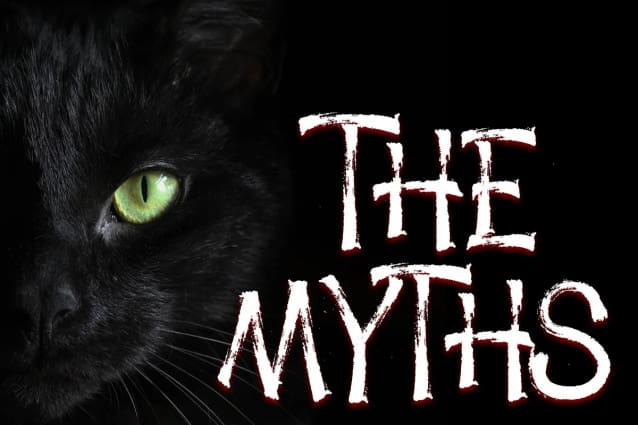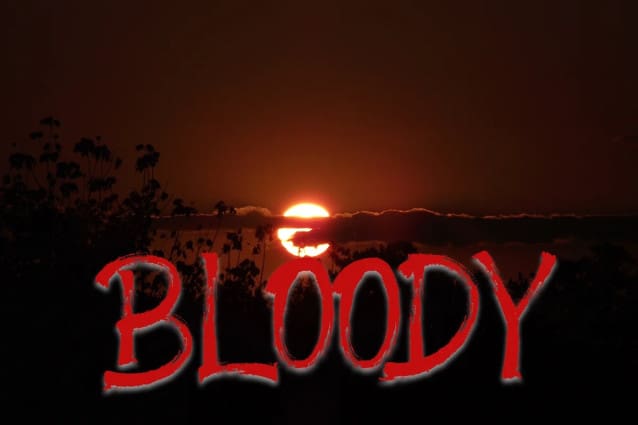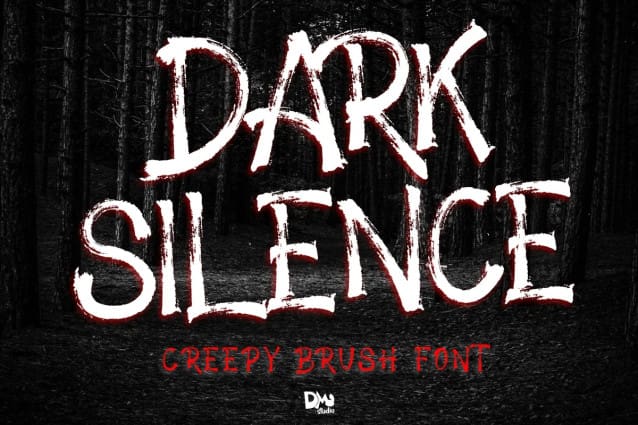
Dark Silence Font
Dark Silence Font is a creepy brush font with rough texture. Make your design more frightening! This font will look outstanding in any context, whether it’s being used on busy backgrounds or as a standalone headline! So don’t wait, make it your font of choice today, and take your designs to the next level!